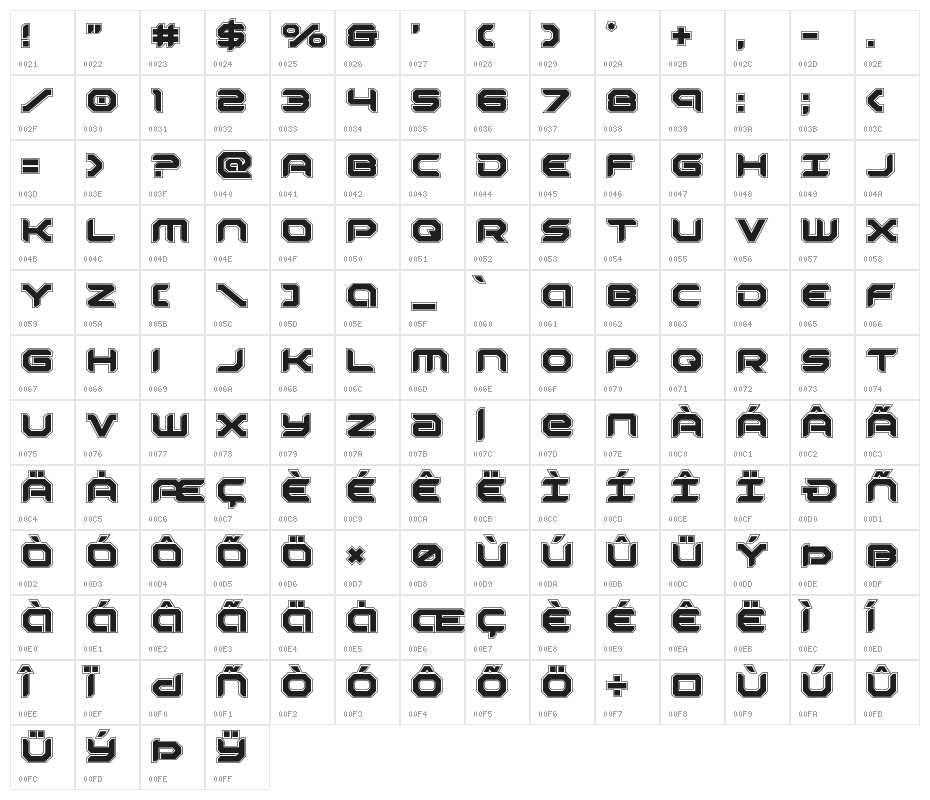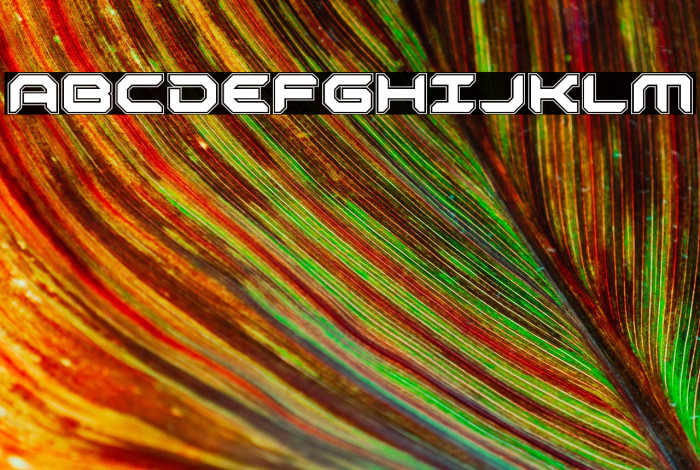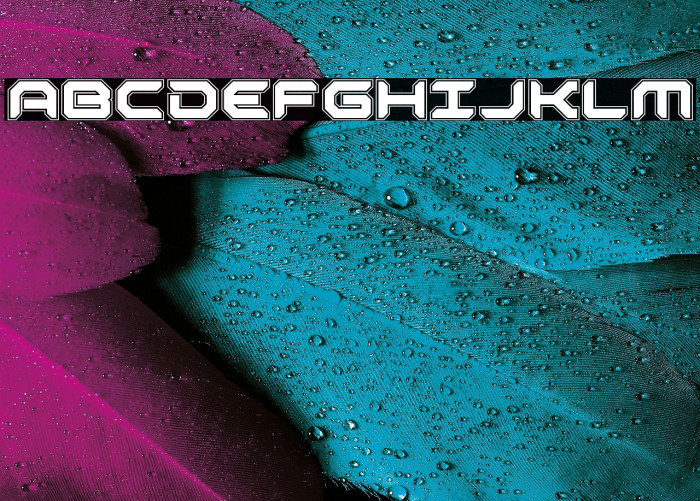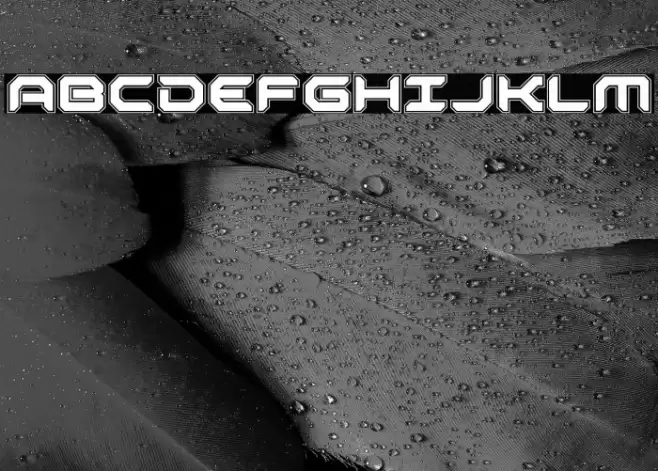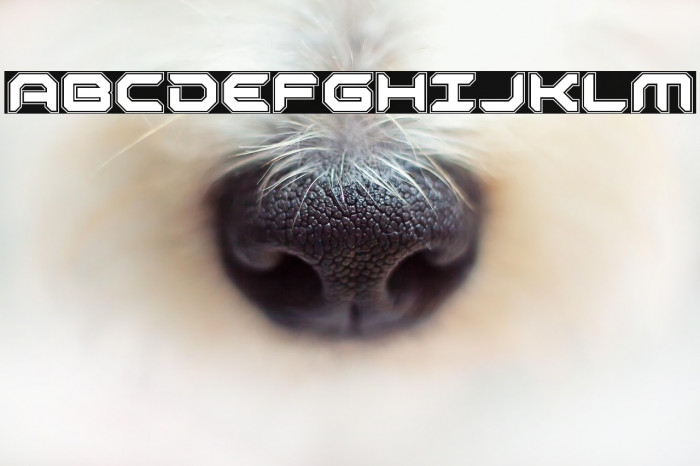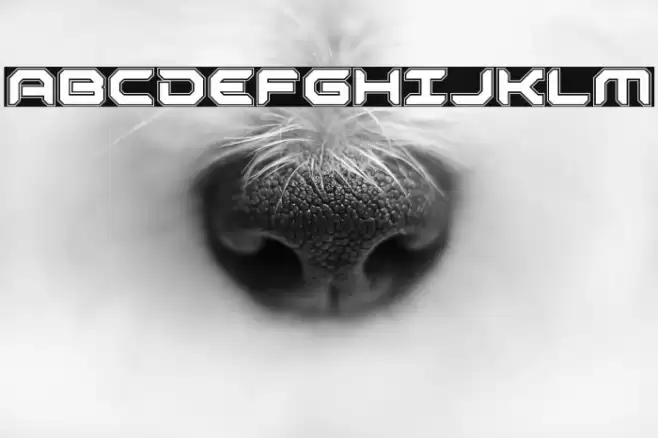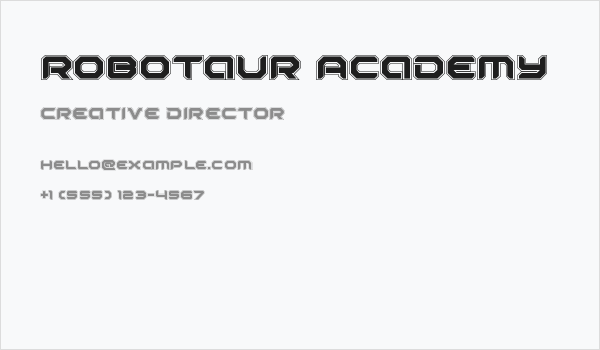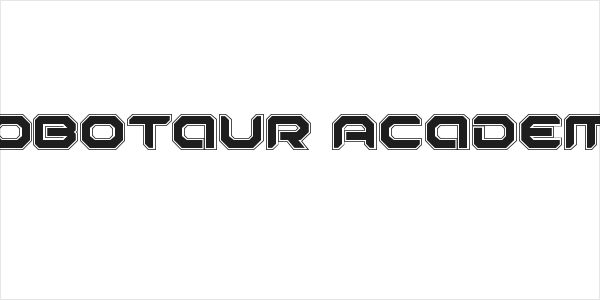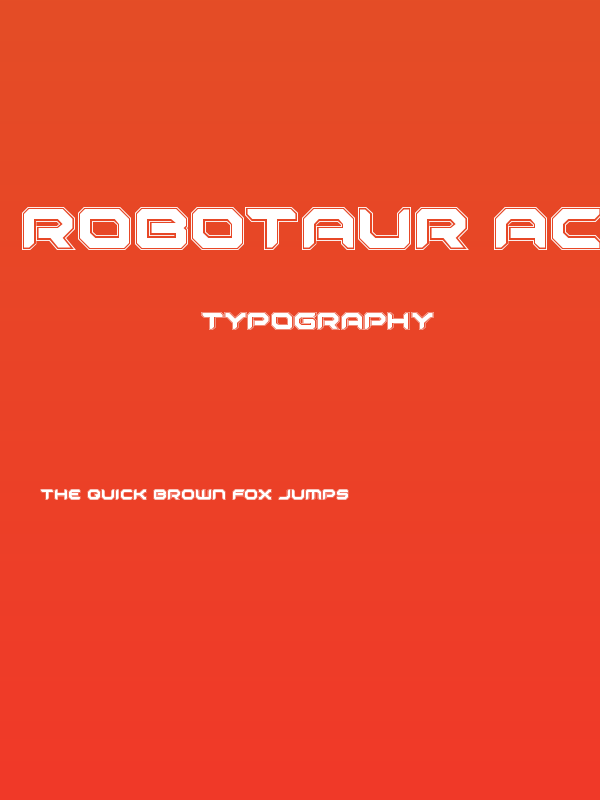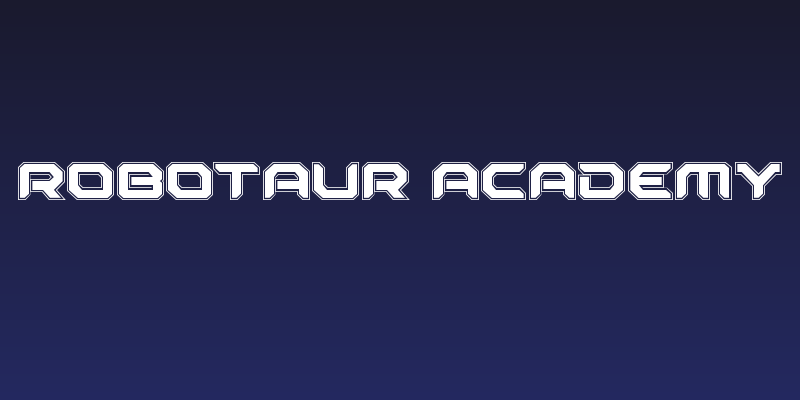
Robotaur Academy Font
Robotaur Academy Description
This font features a bold, futuristic design with a strong geometric structure. Each character is outlined, creating a three-dimensional effect that enhances its modern appeal. The angular lines and sharp edges give it a robotic and technological feel, making it ideal for projects that require a cutting-edge look. The uppercase and lowercase letters maintain a consistent style, while the numbers and special characters complement the overall aesthetic. The font's unique style is perfect for creating eye-catching headlines, logos, and branding materials that stand out.
| Overall Style | Futuristic, Technological |
| Proposed Projects | Ideal for technology branding, sci-fi posters, video game titles, and futuristic-themed designs. |